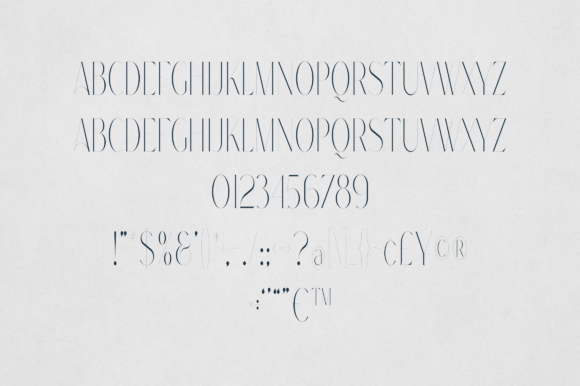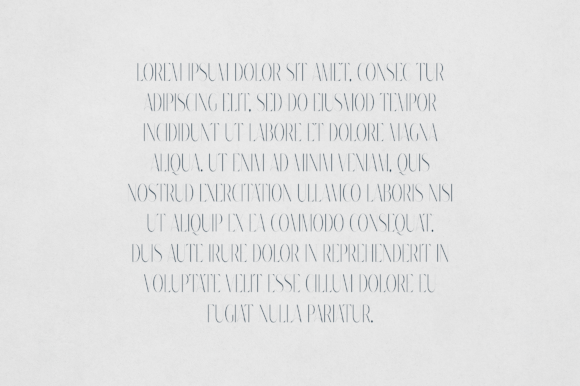
Hart Font: Elevate Your Design with Elegance and Versatility
Are you tired of using the same old fonts for your design projects? Look no further than Hart Font, a stunning and versatile typeface that will take your typography to the next level. With its elegant and refined aesthetic, Hart Font is perfect for designers and crafters looking to add a touch of sophistication to their work.
Hart Font is designed to be used in a variety of design projects, from branding and logo creation to product packaging and magazine headers. Its unique and stylish appearance makes it an excellent choice for designers and crafters who want to create visually appealing and effective designs. Whether you’re working on a personal project or a client’s, Hart Font is sure to impress.
Elegant and Versatile
One of the standout features of Hart Font is its elegance and versatility. This font is designed to be used in a range of contexts, from formal and professional to playful and creative. Its refined aesthetic makes it perfect for use in:
• Branding projects: Create a lasting impression with Hart Font’s elegant and sophisticated appearance.
• Home-ware designs: Add a touch of style and sophistication to your home-ware designs with Hart Font.
• Product packaging: Make your product stand out on store shelves with Hart Font’s unique and eye-catching appearance.
• Magazine headers: Create stunning magazine headers with Hart Font’s elegant and refined aesthetic.
• Text overlays: Use Hart Font as a stylish text overlay to add depth and interest to any background image.
Why Choose Hart Font?
So why choose Hart Font over other fonts on the market? Here are just a few reasons:
• Unique and stylish appearance: Hart Font’s elegant and refined aesthetic makes it stand out from other fonts.
• Versatile: Use Hart Font in a range of design projects, from formal and professional to playful and creative.
• Elegant and sophisticated: Add a touch of elegance and sophistication to your designs with Hart Font.
Tips for Using Hart Font
Here are a few tips for getting the most out of Hart Font:
• Experiment with different sizes and colors: Find the perfect size and color to suit your design project.
• Pair with other fonts: Pair Hart Font with other fonts to create a unique and visually appealing typography.
• Use in combination with images: Use Hart Font as a text overlay to add depth and interest to your images.
In conclusion, Hart Font is a stunning and versatile typeface that is perfect for designers and crafters looking to add a touch of elegance and sophistication to their work. With its unique and stylish appearance, Hart Font is sure to impress in a range of design projects, from branding and logo creation to product packaging and magazine headers. So why wait? Try Hart Font today and take your typography to the next level!